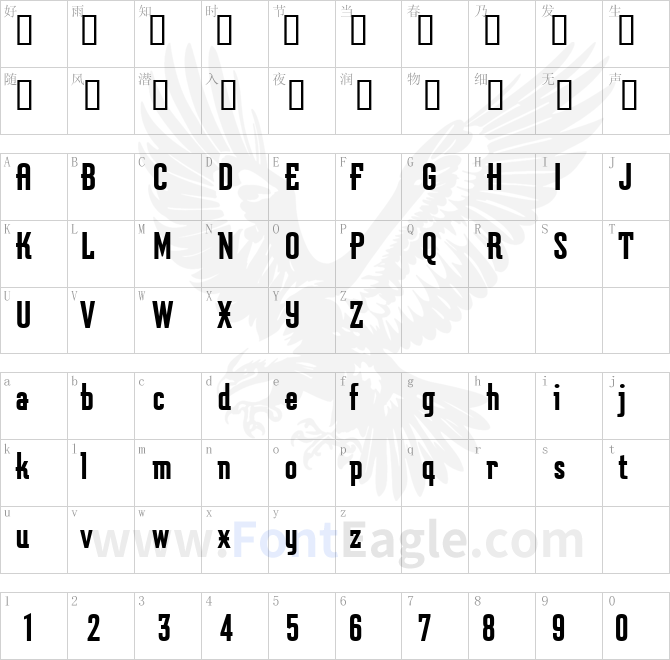
- Font name:Graficz
- Font Subfamily ID:Graficz Bold
- Font Full Name:Graficz Bold
- Postscript:GraficzBold
- Font Copyright:Copyright 1999 Stefan Hattenbach/MAC Rhino